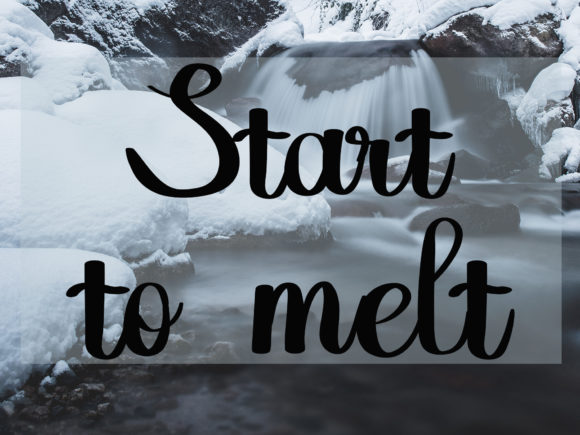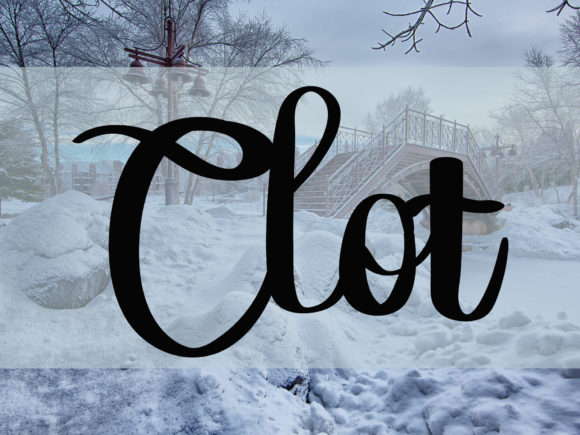
Chistmas Holiday Font
db-ku.com - Script & Handwritten -- Chistmas Holiday is an elegant script font with a contemporary atmosphere and impeccable form, inspired by timeless classic calligraphy. Not too thin and not too thick, balanced and varied, this font was designed to enhance the beauty of your projects.